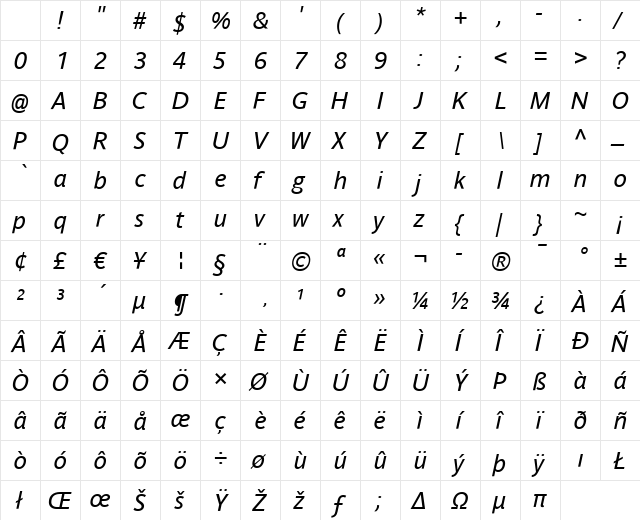
Complete Parisine Italic glyph index. Displaying only characters natively supported by Parisine Italic font.
Parisine is a composed and adaptable typeface that performs quietly and consistently across a wide range of design contexts. The slanted form adds forward momentum and visual energy.
Who designed the Parisine Italic font?
This font was published by TM - Created by Jean-Francois Porchez. Distribued exclusively by Porchez Typofonderie. Check the technical specs section for copyright and designer details.